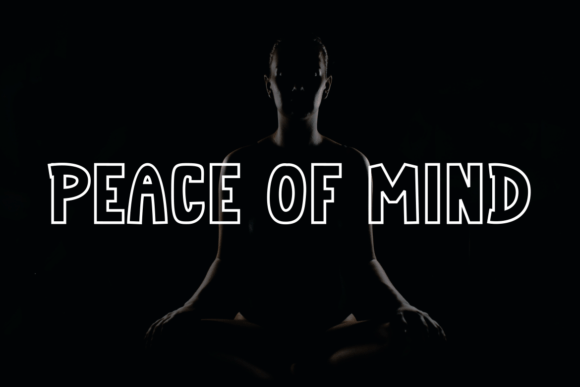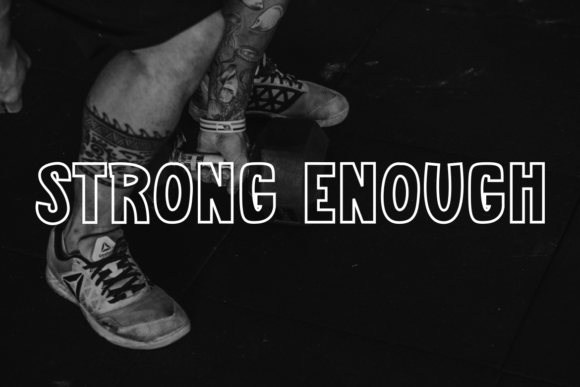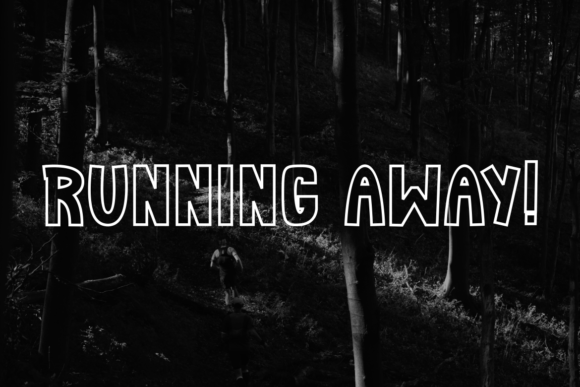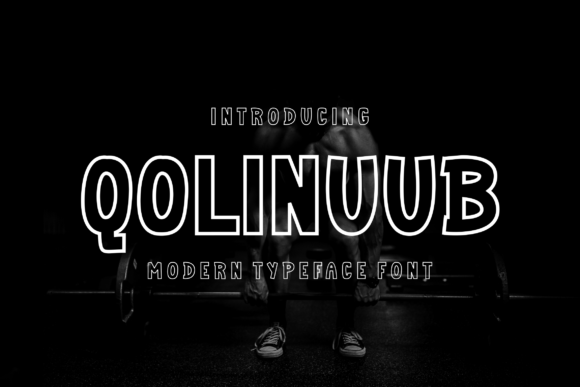
Introduction to Qolinuub Font
Qolinuub is a modern, outline display font.
Its casual yet still professional look makes it suitable for a wide spectrum of applications .